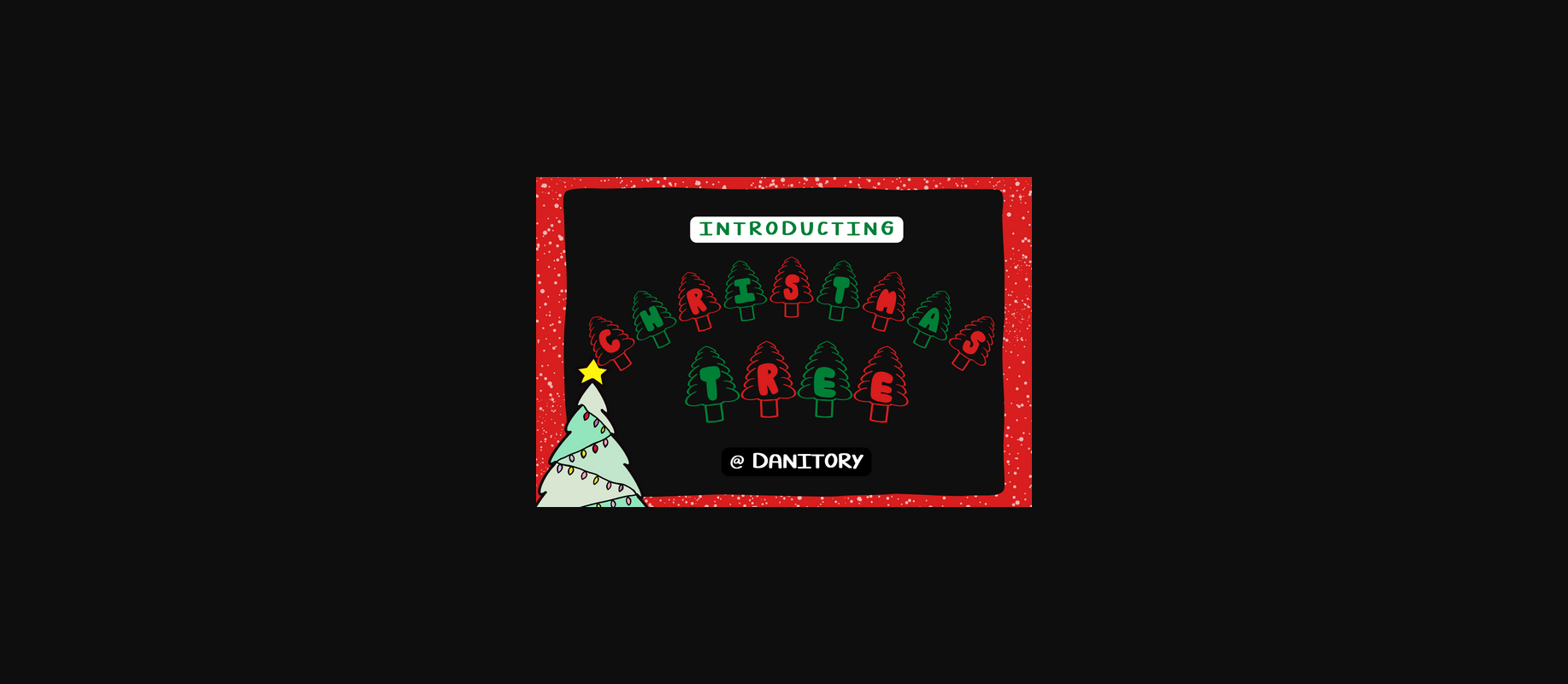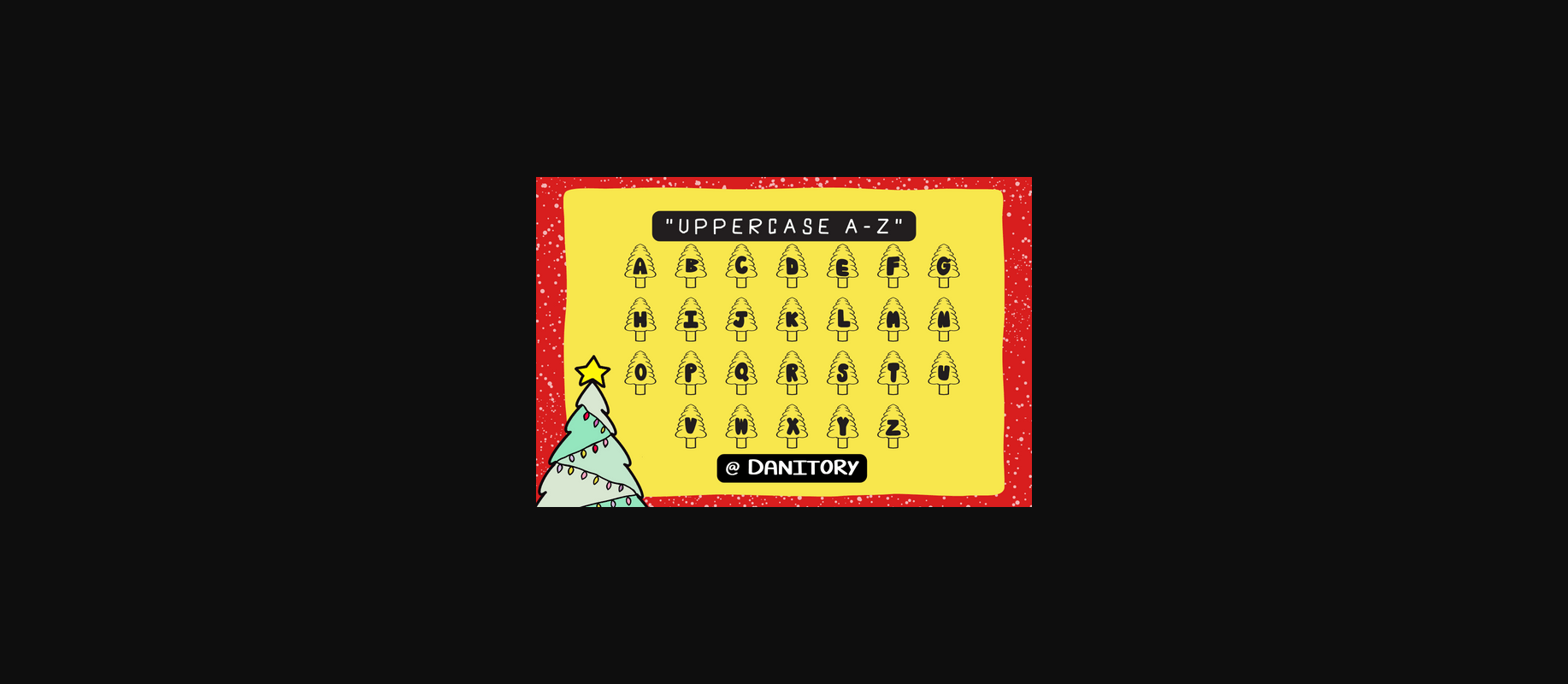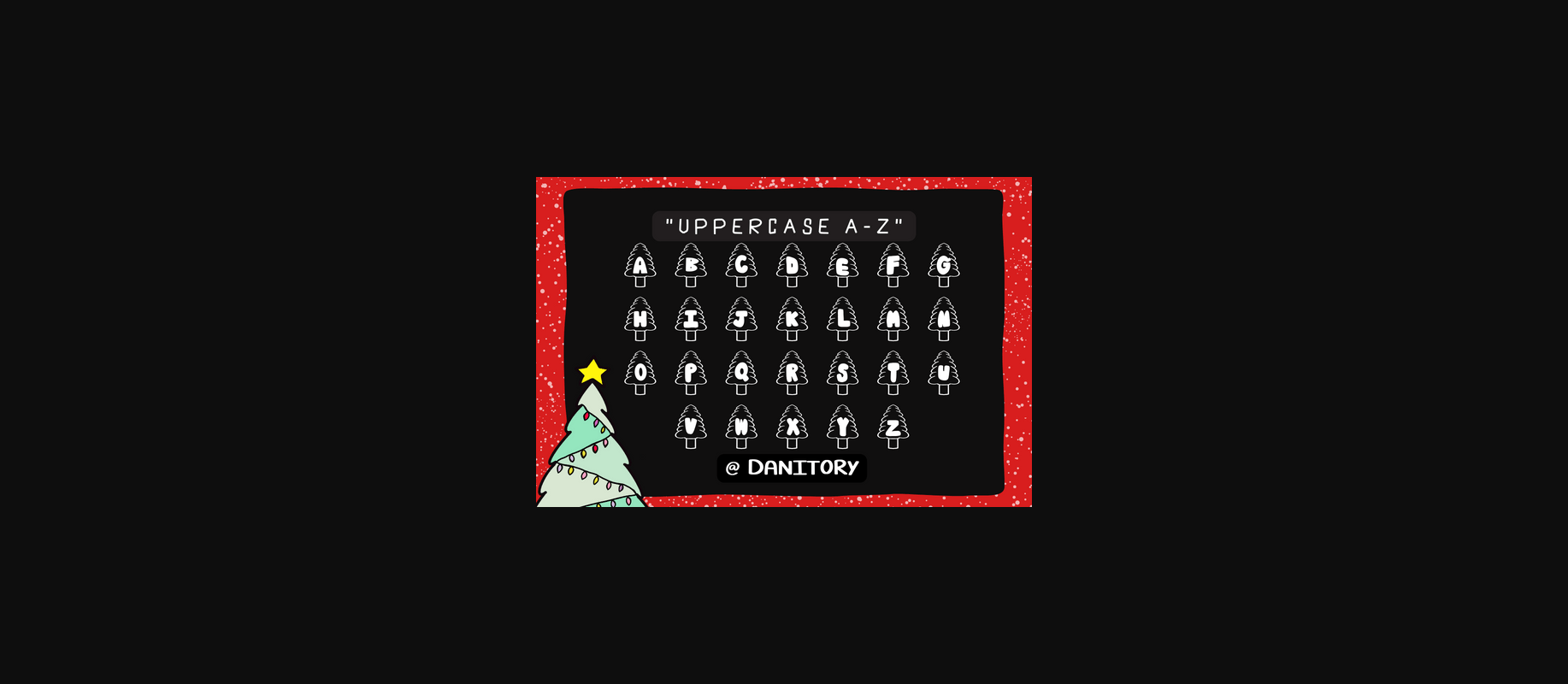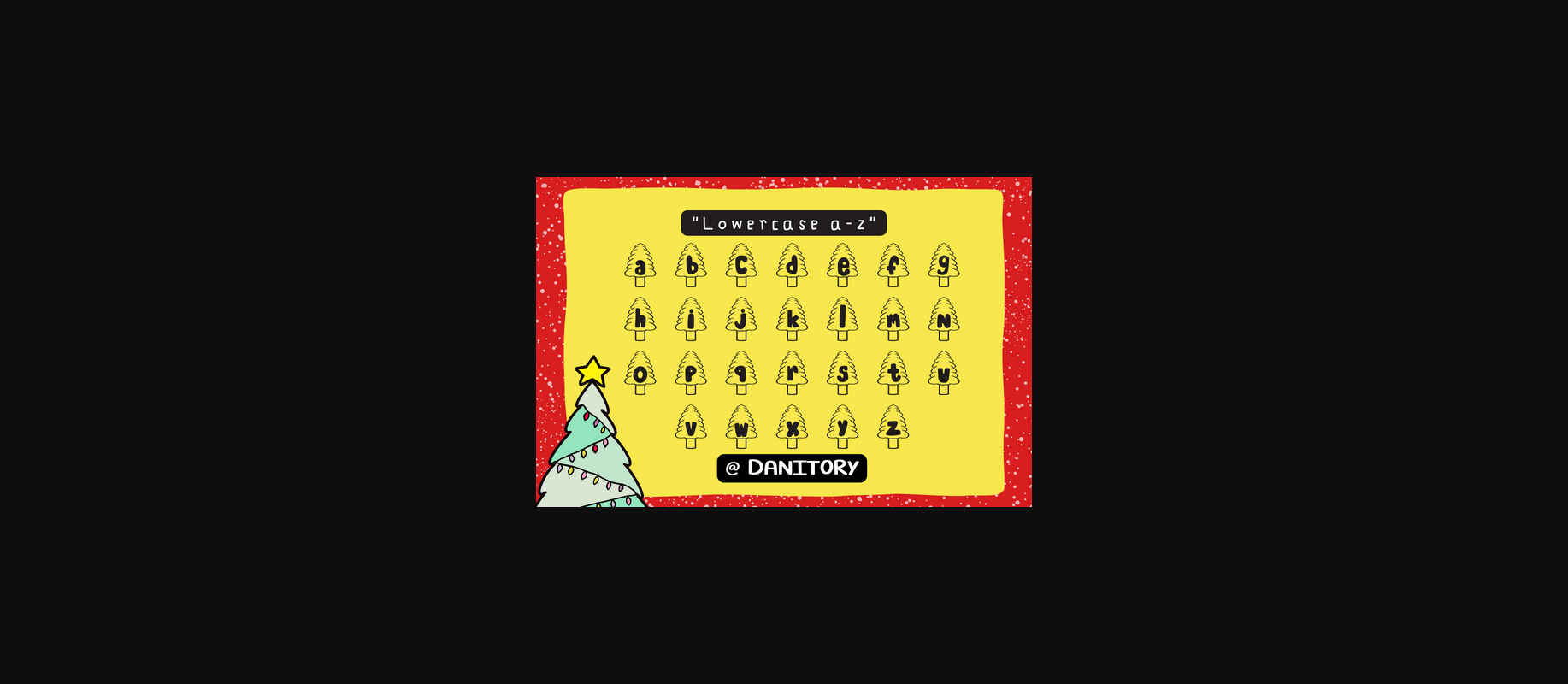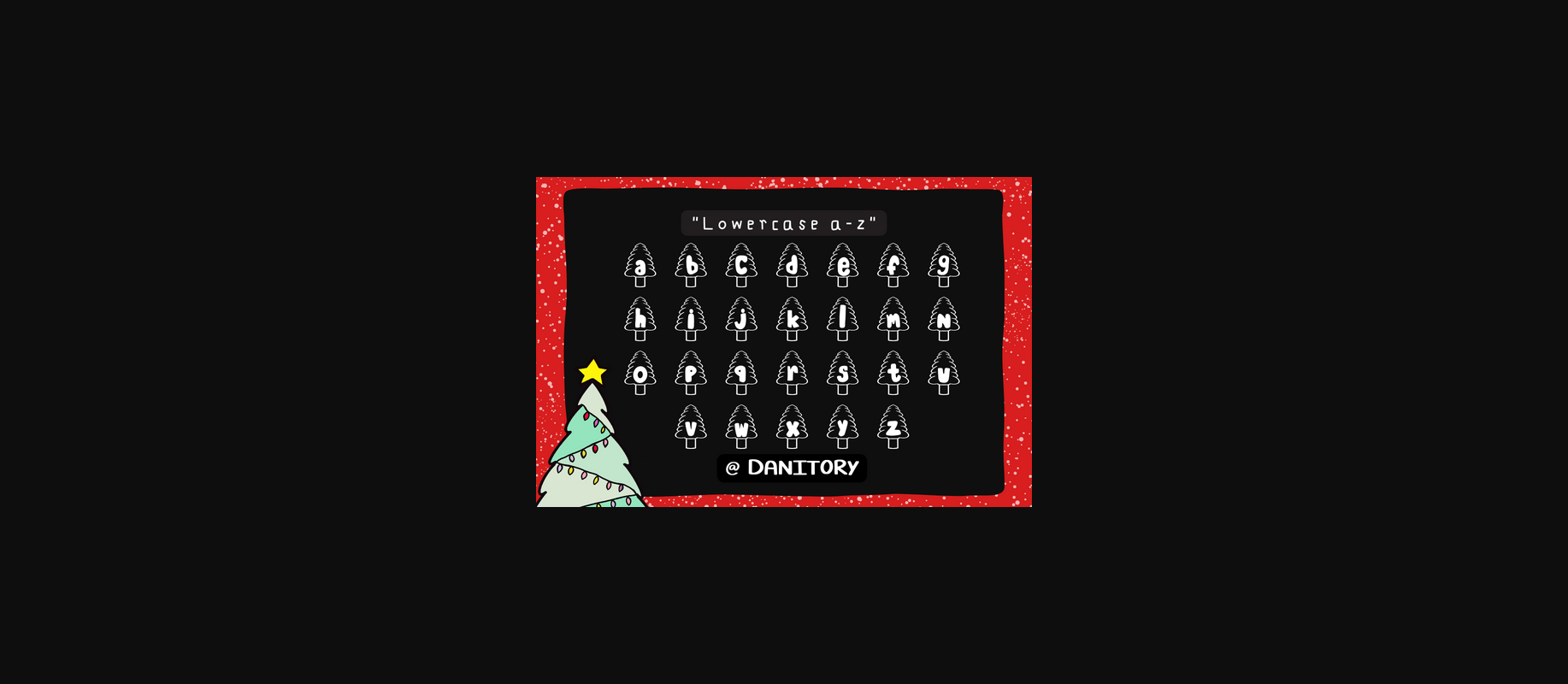
Christmas Tree Font
About Christmas Tree Font
Christmas Tree is a cute decorative font designed for the upcoming Christmas season. You can make a monogrammed gift for your special someone by adding this font to your design and you will definitely love the results!